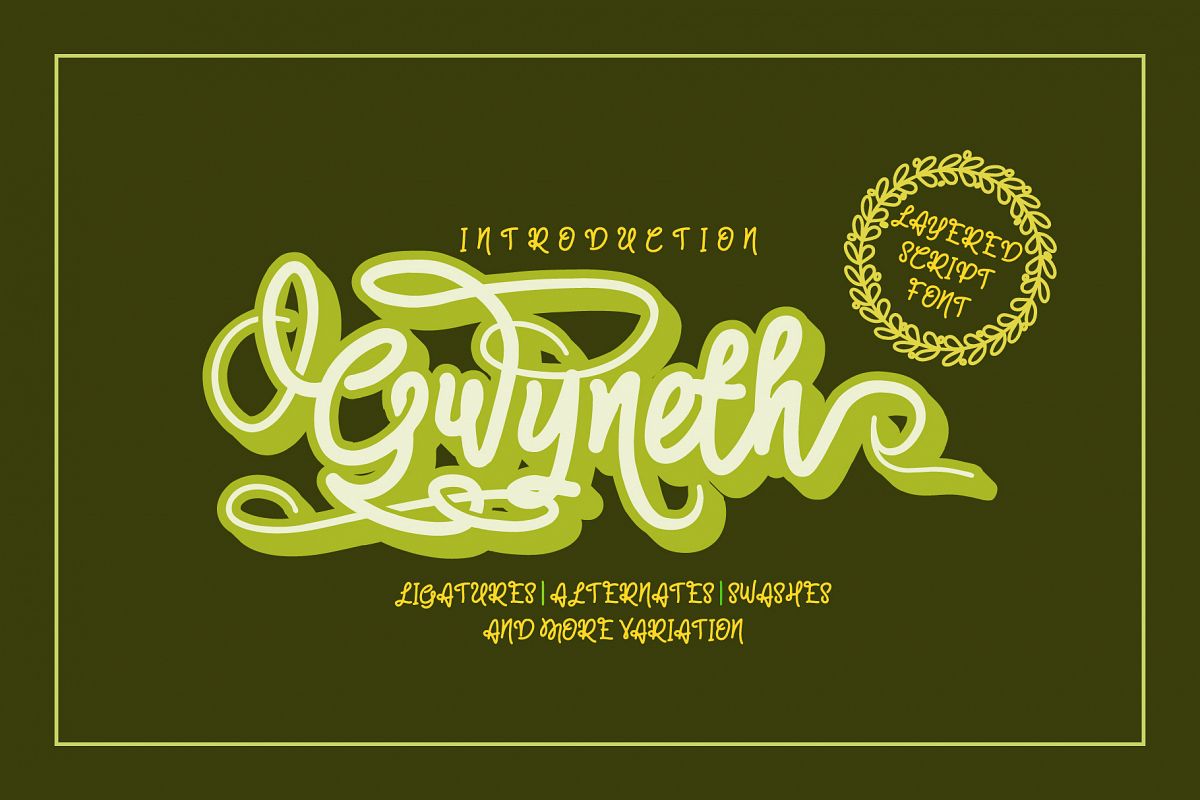
Gwyneth | modern script layered
Introducing Gwyneth, a fun hand-lettering style typeface with TONS of alternates!
This typeface started off large, and kept getting larger, until I'd created a minimum of different options for each letter! Every letter comes in: standard uppercase, standard lowercase, alternate uppercase,  uppercase entry swash, lowercase entry swash, and lowercase contextual alternates, ligatures, more of Stylistic Set, Ornamen and layer / Extrude
The letters can be mixed and matched to create the look of a hand-lettered piece. Check out the example images -- all characters on the photo images are included in Gwyneth!
Gwyneth includes:
-   More 491 glyphs total
-   Accented characters for multiple language support
-    Additional Swash
-    Coded OpenType features: stylistic alternates,  swashes,  contextual alternates, ligatures, Stylistic Set
-   19 lowercase letter ligatures (bb, cc, dd, ee, ff, gg, ll, mm, nn, oo, pp, rr, ss, tt, zz, th, sh, fl, ft)